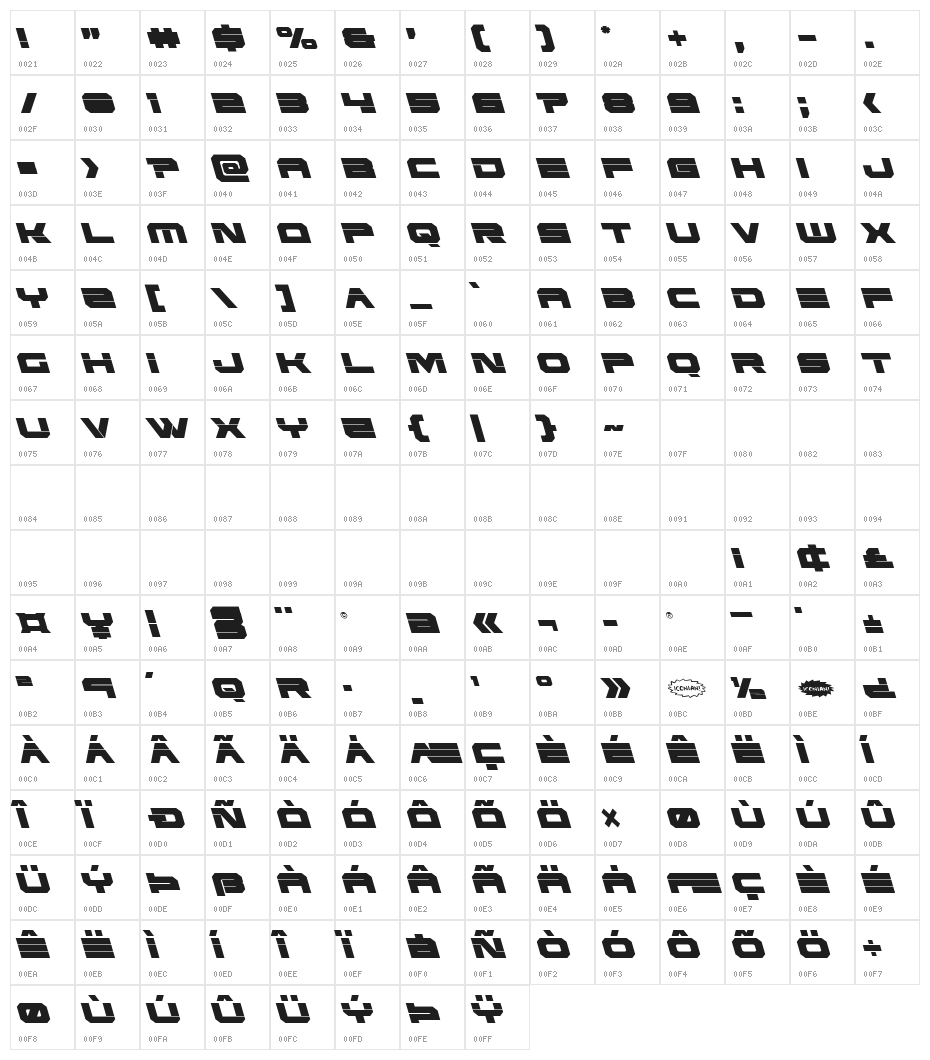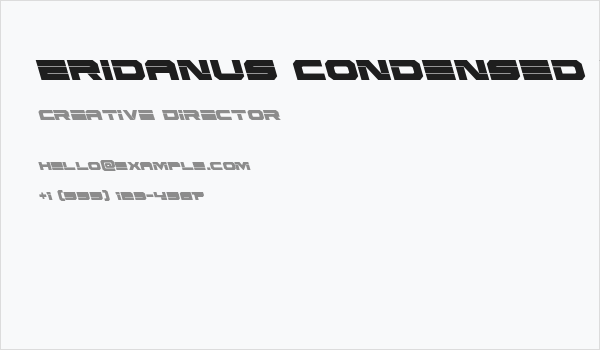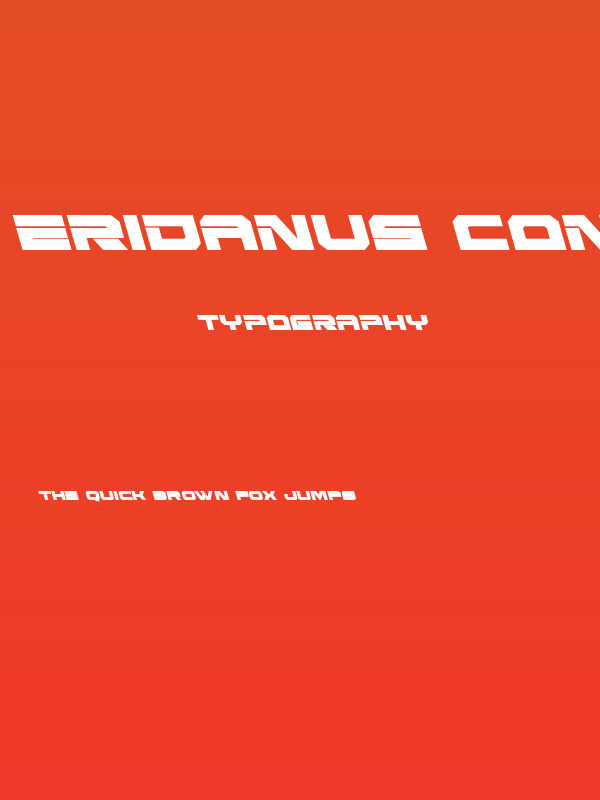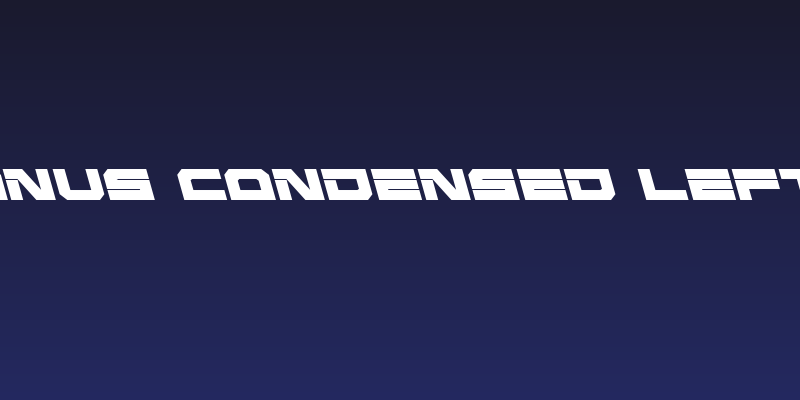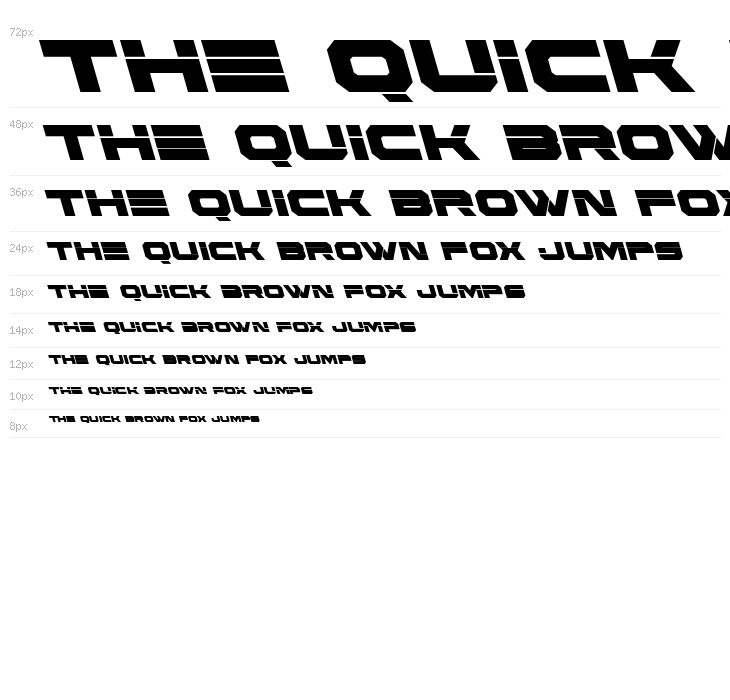
Eridanus Condensed Leftalic Font
Eridanus Condensed Leftalic Description
This font features a bold, futuristic design with a strong geometric influence. The characters are condensed and have a distinct angular style, giving them a modern and edgy appearance. The strokes are thick and consistent, providing a high level of contrast that makes the font stand out. The italicized slant adds a dynamic and forward-moving feel, enhancing its contemporary look. The overall design is clean and sharp, making it suitable for attention-grabbing headlines and titles. The special characters maintain the same bold and angular aesthetic, ensuring consistency across all glyphs.
| Proposed Projects | Ideal for sci-fi themed projects, technology branding, video game titles, and modern advertising campaigns. |